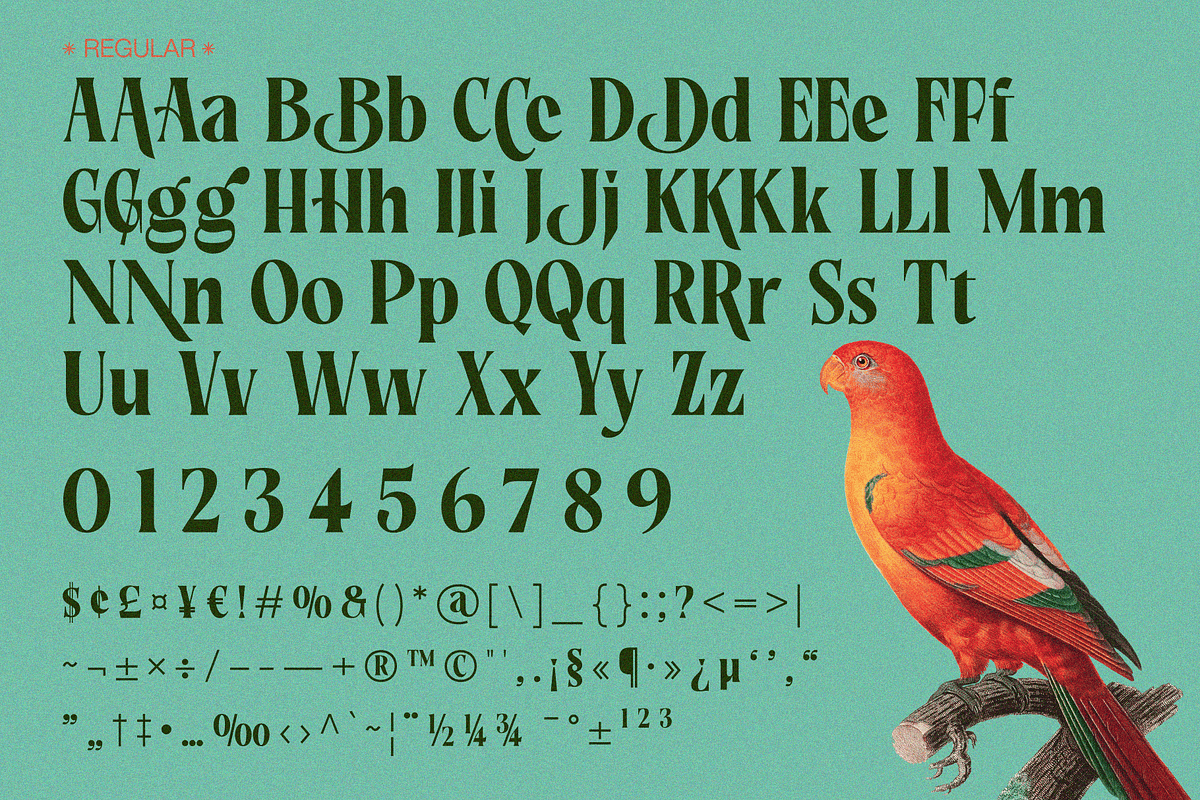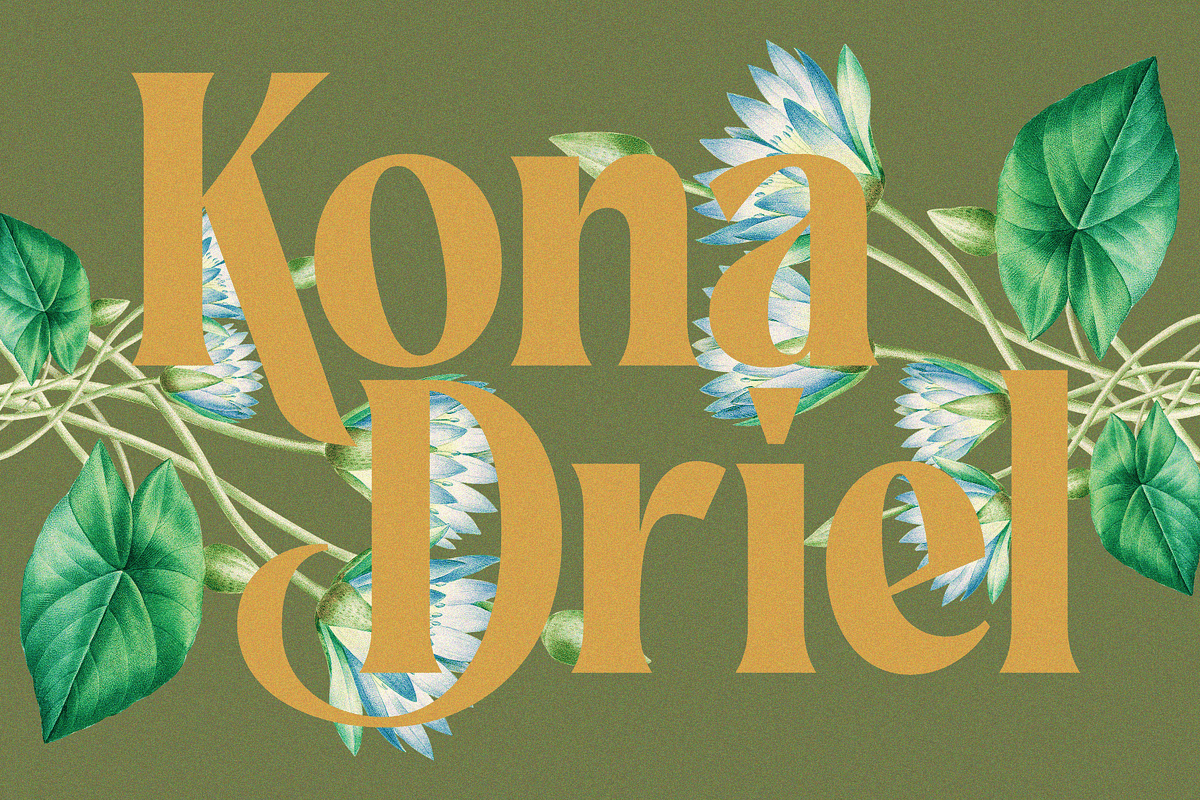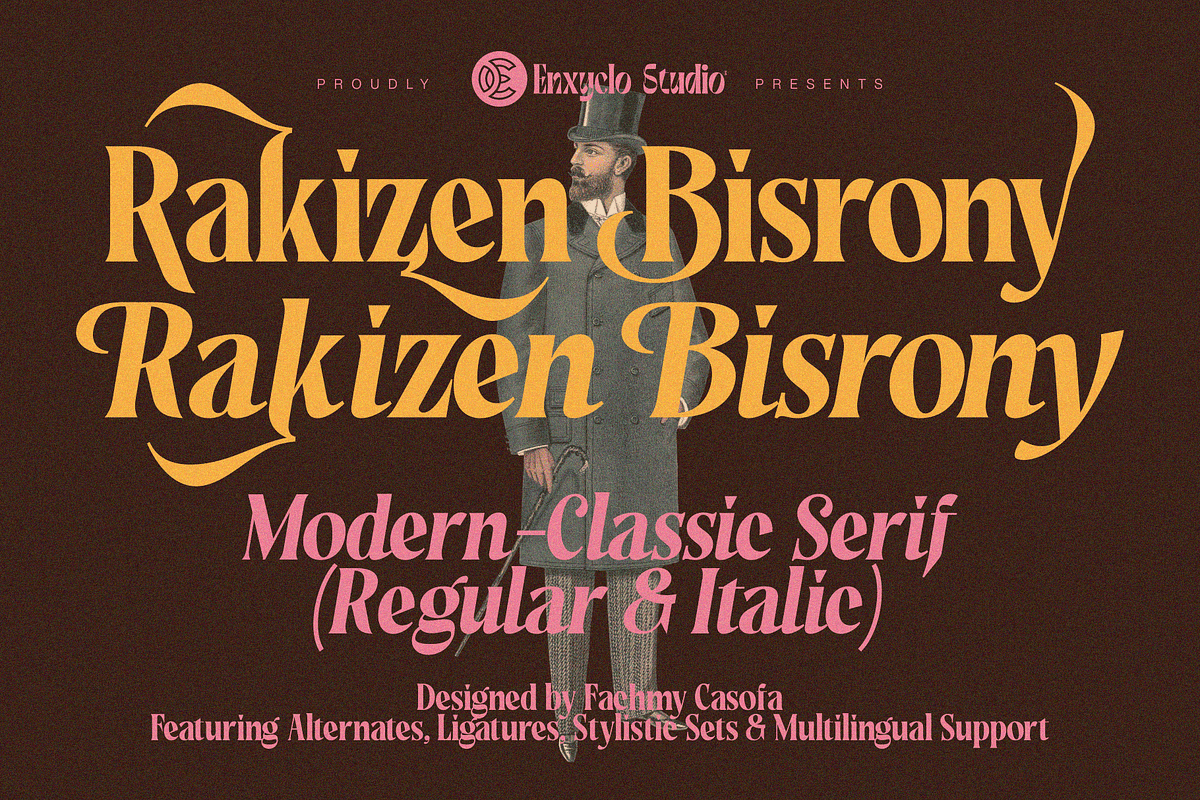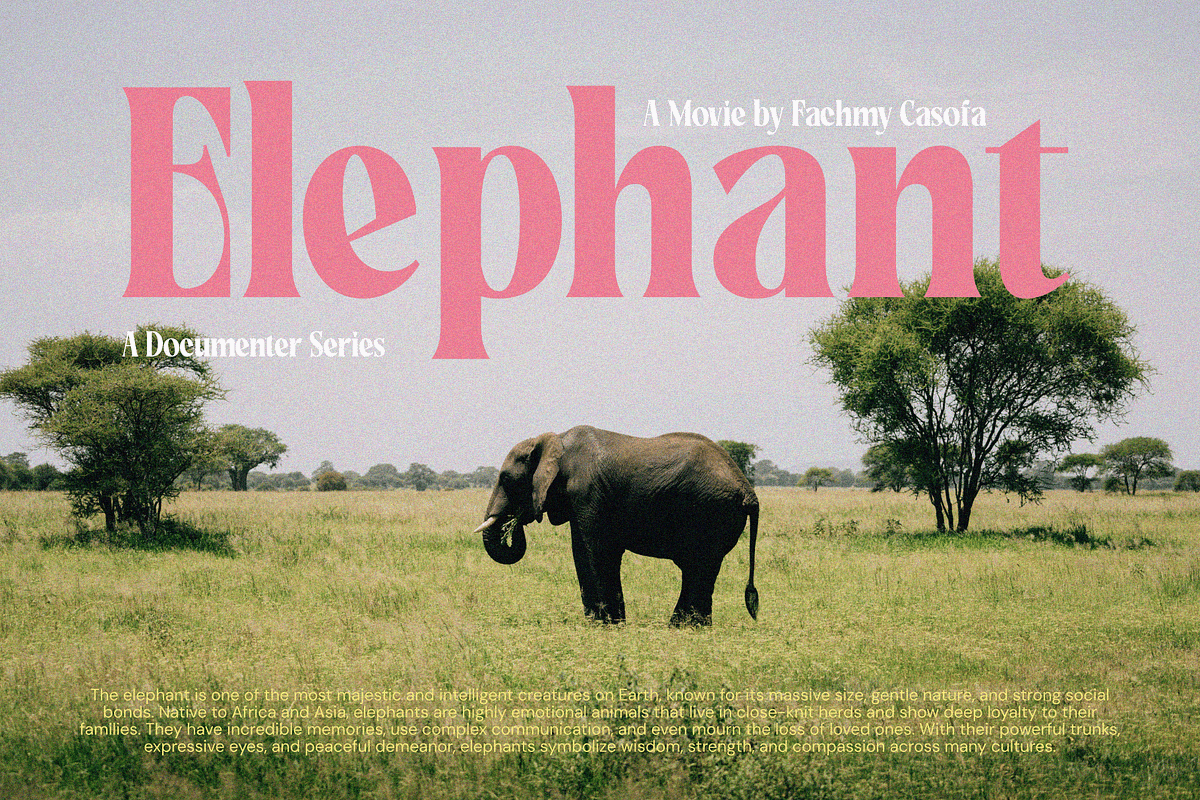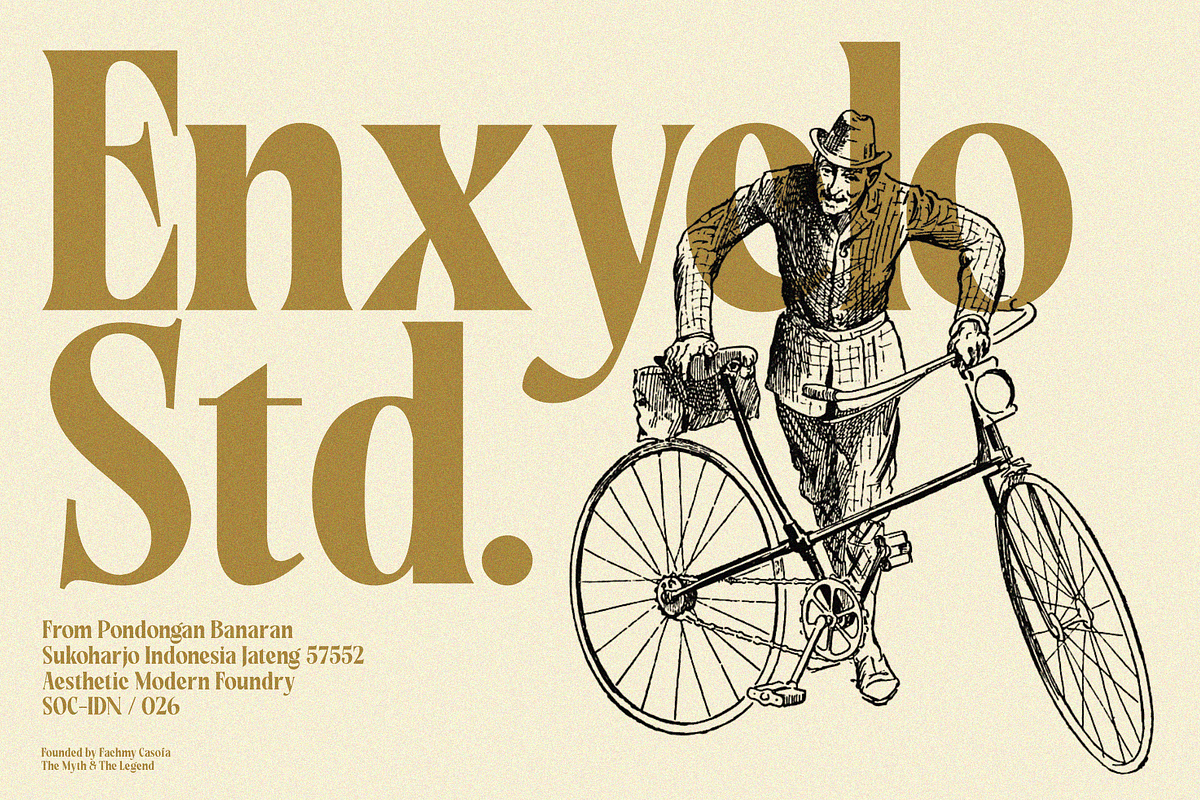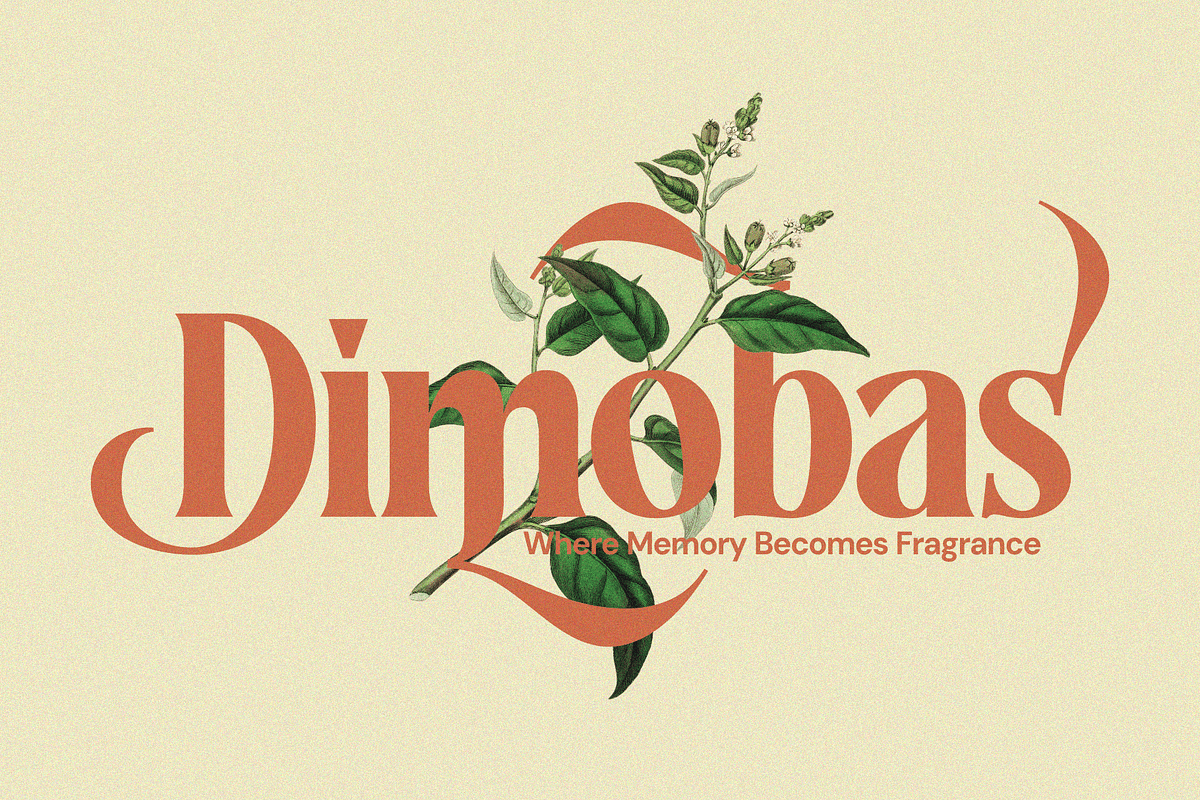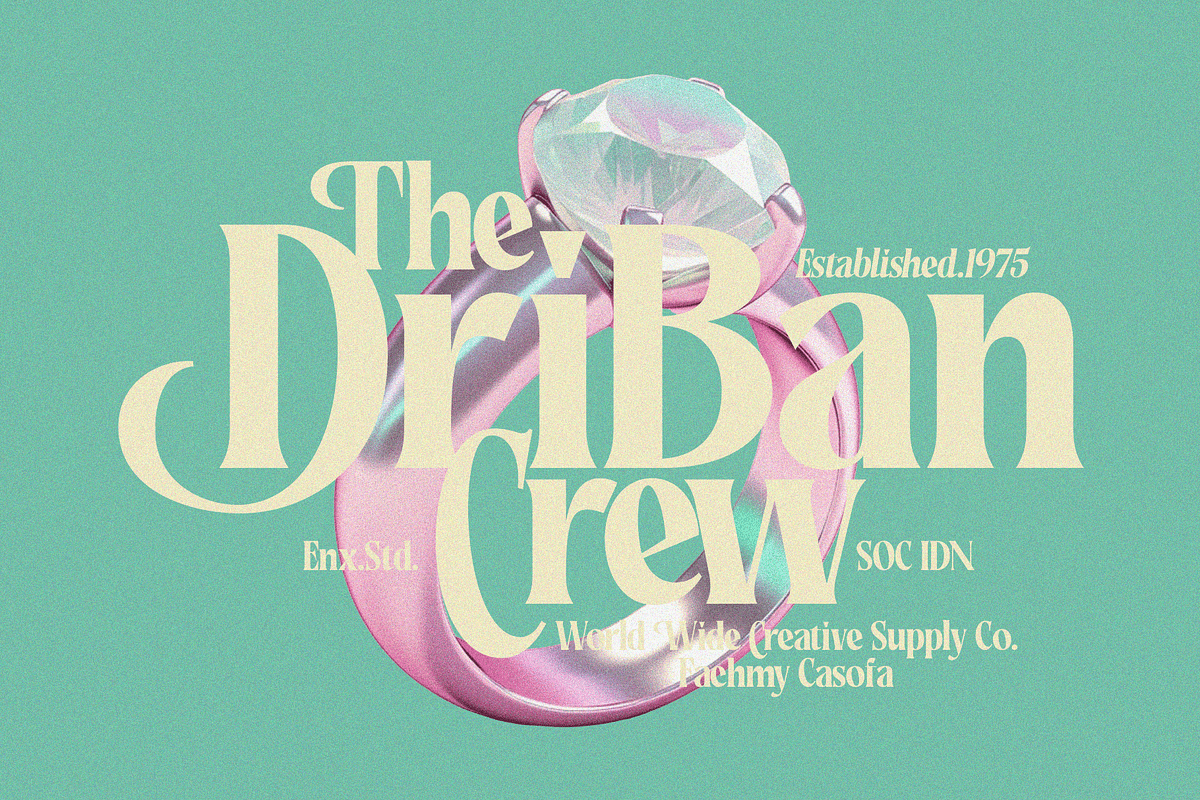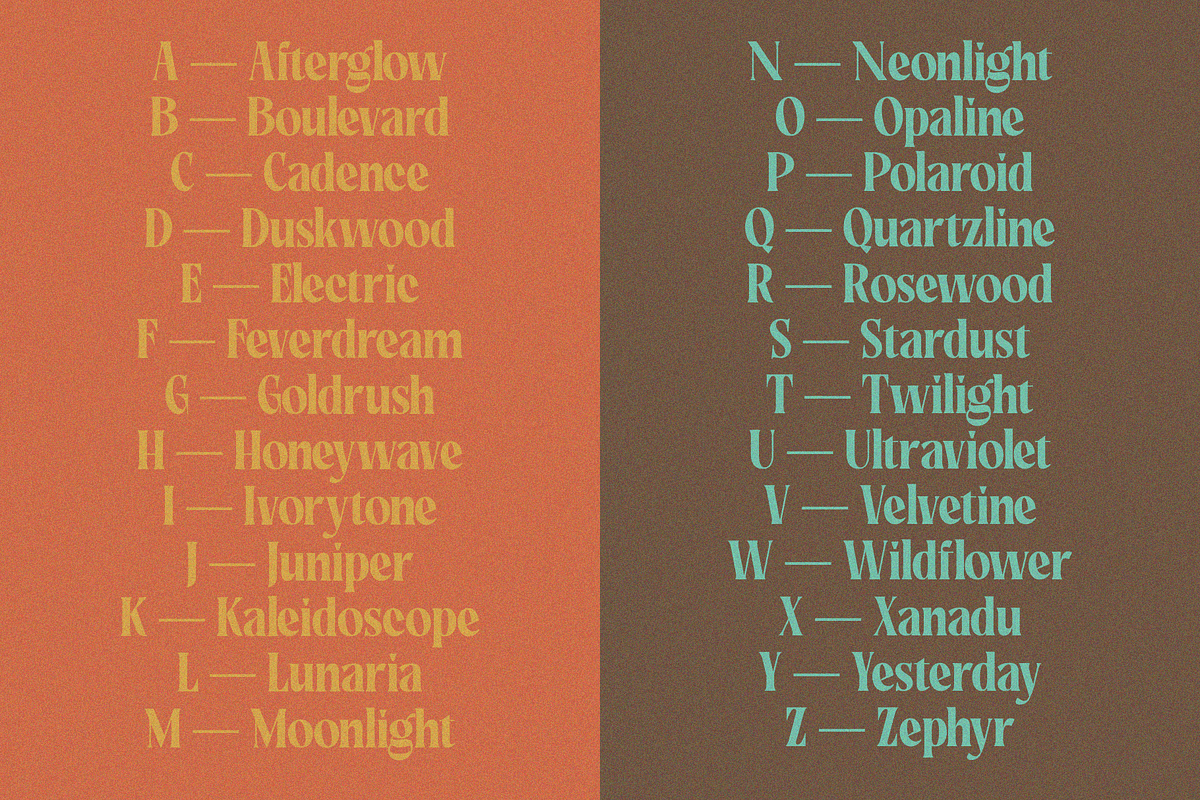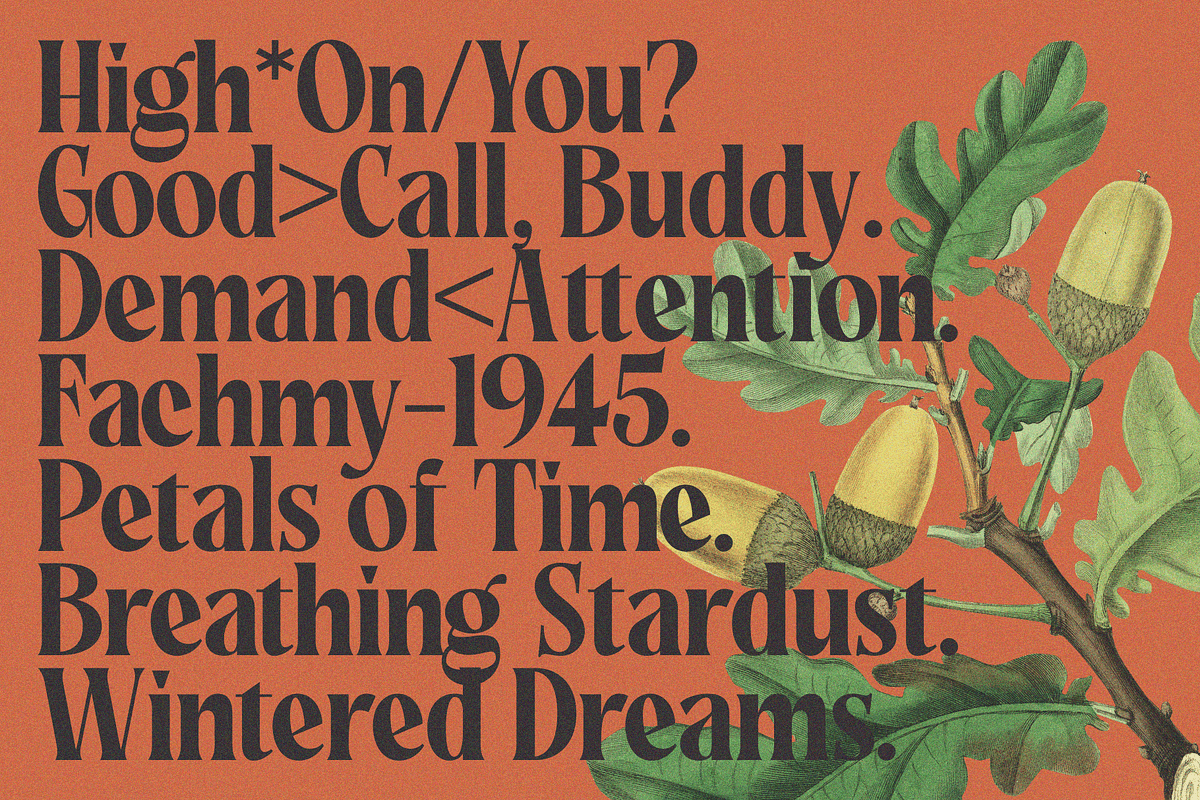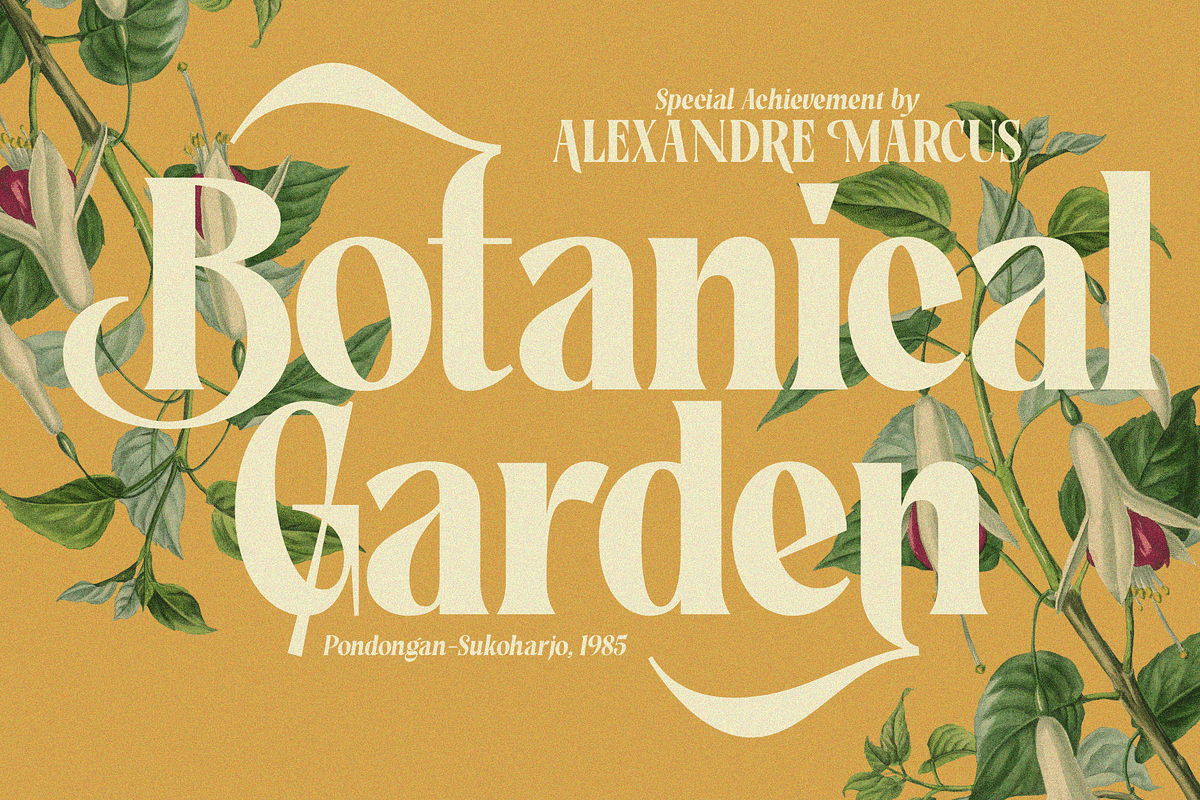
Rakizen Bisrony — Modern & Classic
Rakizen Bisrony is a modern-classic serif font designed to embody elegance, luxury, and refined beauty. Crafted with a conceptual structure and balanced proportions, this typeface merges contemporary minimalism with timeless sophistication—creating a rich, premium aesthetic perfect for high-end visual branding.
Available in Regular and Italic, Rakizen Bisrony offers versatility for expressive typography. The Regular style delivers bold confidence and clean structure, while the Italic adds graceful movement and subtle glamour—ideal for creating contrast in headlines, logos, and editorial layouts.
With its elegant serif details, refined ligatures, and carefully shaped letterforms, this font elevates fashion brands, cosmetic packaging, beauty campaigns, skincare labels, and boutique identities. It feels luxurious yet modern, lavish yet minimal—perfect for brands that want to communicate richness, creativity, and premium quality.
Whether used for a logo, logotype, poster design, or contemporary brand system, Rakizen Bisrony delivers a glamorous and sophisticated presence that leaves a lasting impression.
Rakizen Bisrony is not just a serif font—it’s a statement of modern luxury and aesthetic excellence.
- Regular & Italic
- Uppercase & Lowercase Letters
- Punctuation Marks
- Symbols & Special Characters
- Currency Symbols
- Stylistic Set 1-5
PERFECT FOR
- Luxury Logo & Logotype
- Fashion & Boutique Branding
- Beauty & Cosmetic Packaging
- Skincare Brand Identity
- Glamour Editorial Headlines
- Premium Poster Design
- Elegant Contemporary Visual Systems